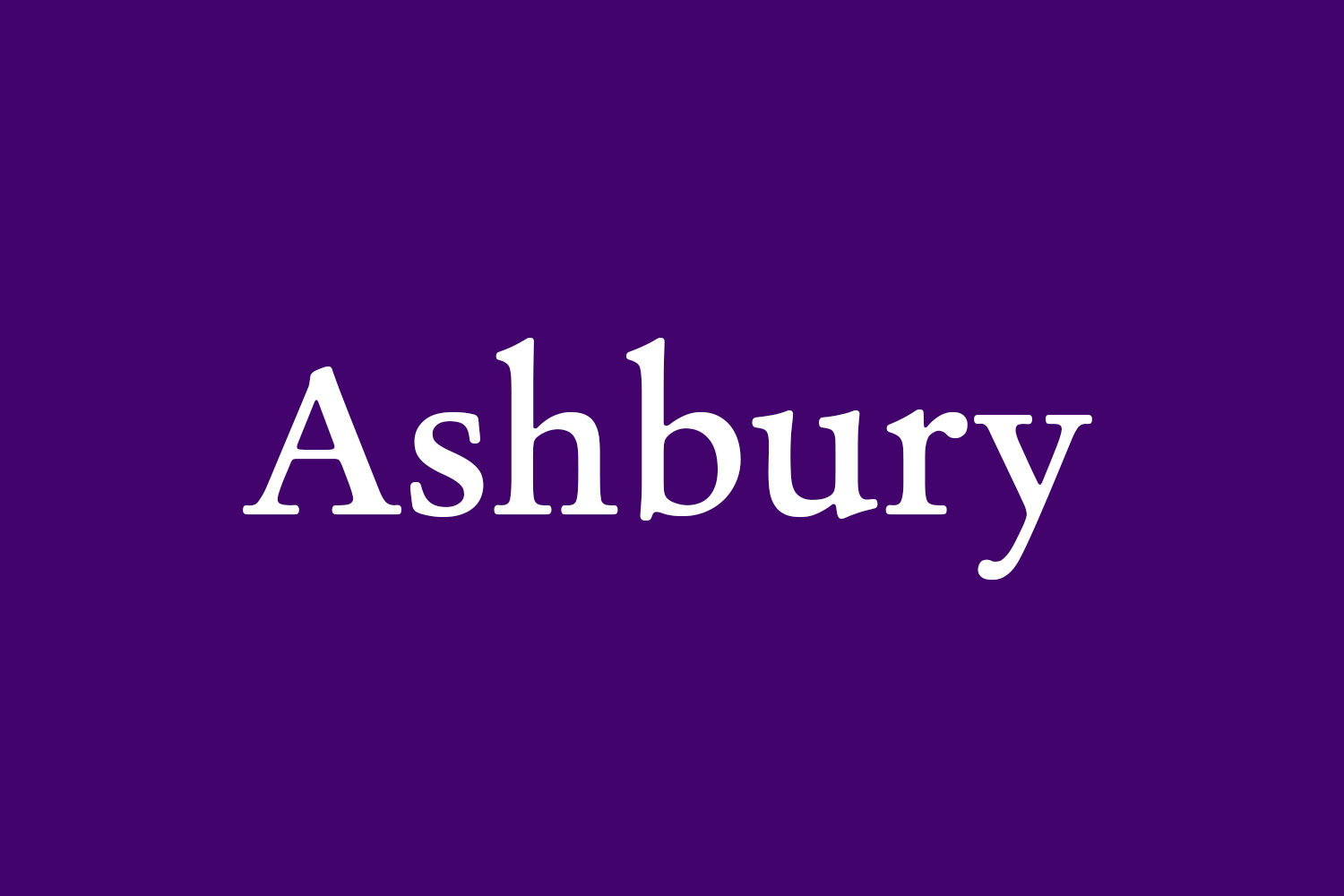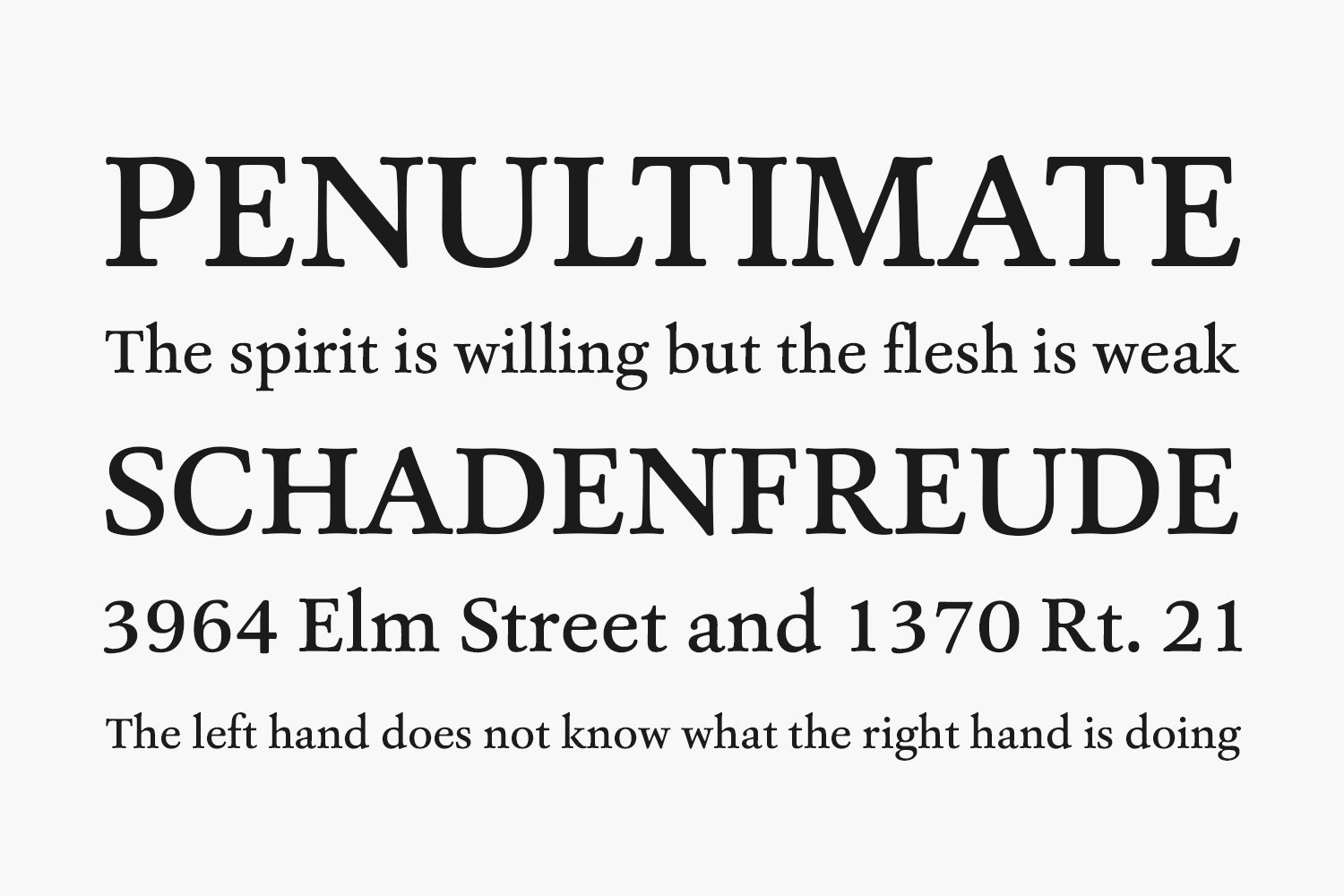
Ashbury Free Font derives its inspiration from 18th century transitional types such as Caslon and Baskerville. It is however not a revival but interprets formal aspects in a new and individual fashion. With a flowing outline, it remains warm and pleasant but assertive because of its solid strokeweights.
Ashbury is very well equipped for a wide range of ambitious applications.
Ashbury comes in ten styles, in OpenType format and with extended language support for more than 40 languages. All weights contain small caps, swash capitals, standard and discretional ligatures, proportional lining figures, tabular lining figures, proportional old style figures, tabular old style figures, matching currency symbols, fraction- and scientific numerals.